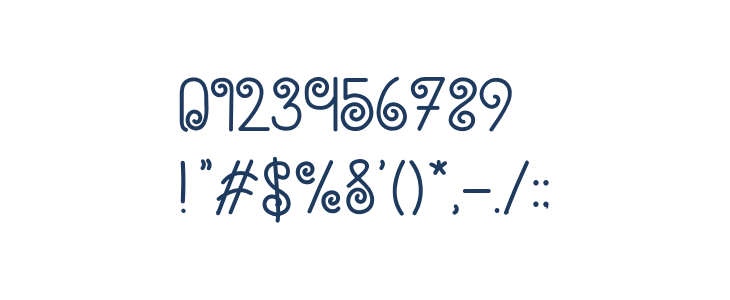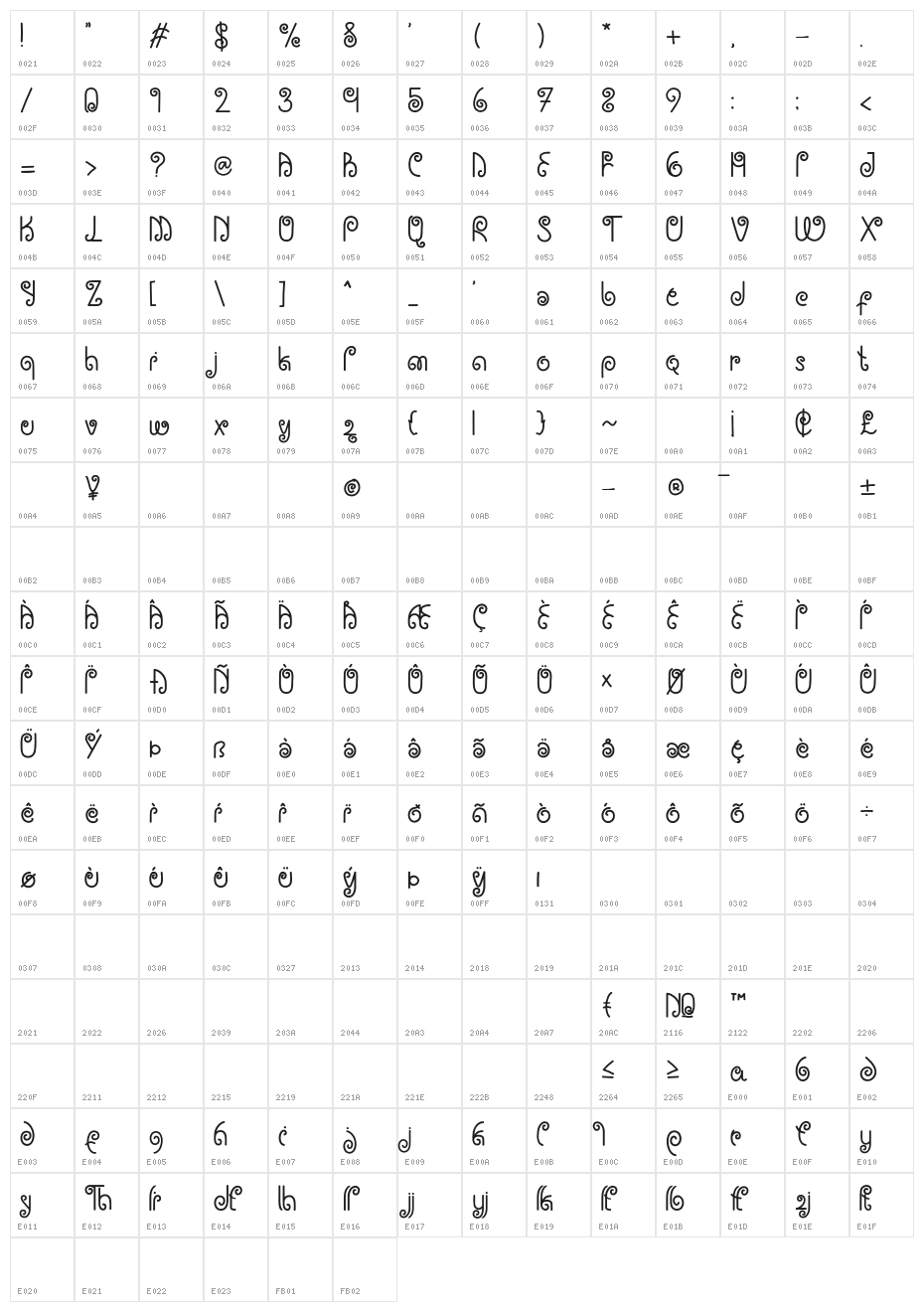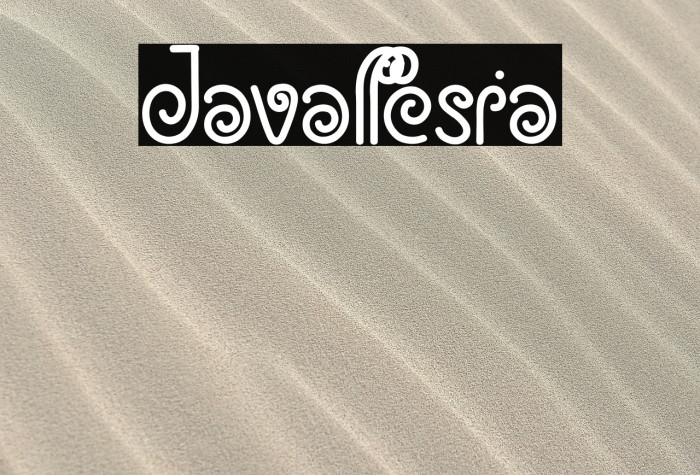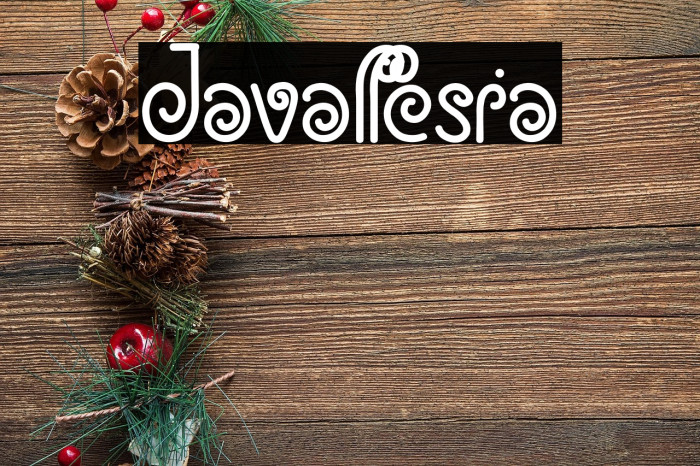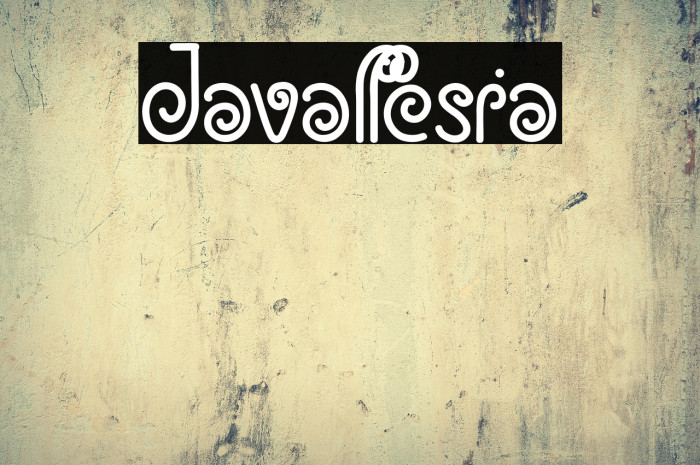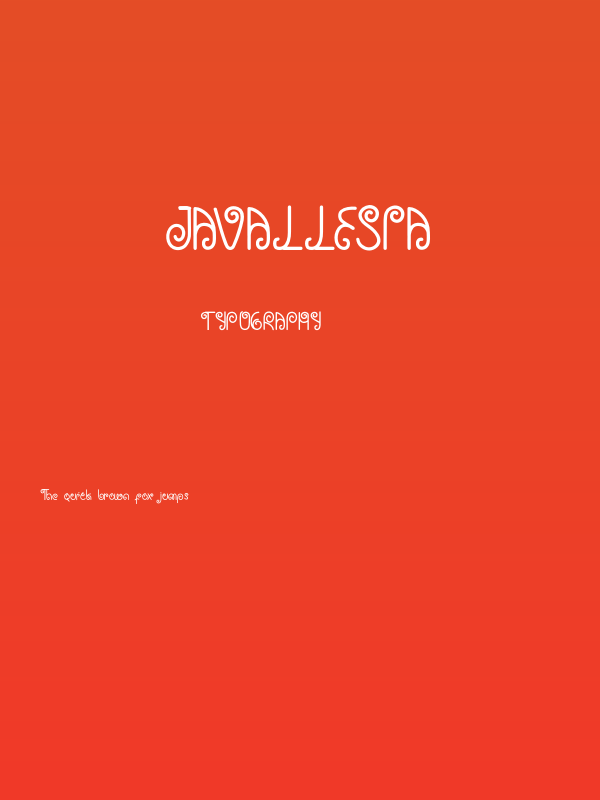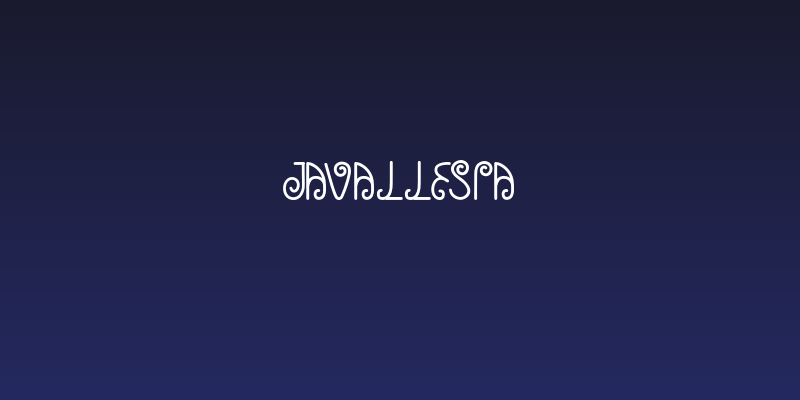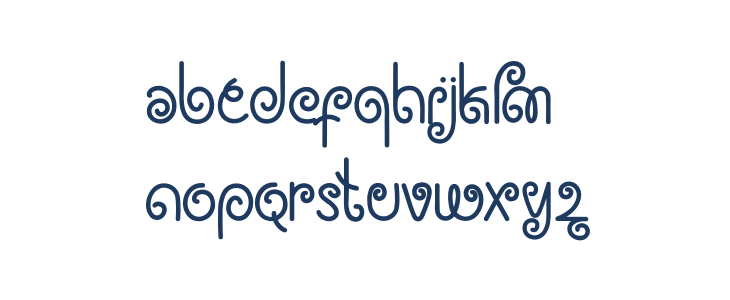
Javallesia Font
Javallesia Description
This font features a whimsical and playful design with a decorative flair. Each character is crafted with intricate loops and curls, giving it a unique and artistic appearance. The uppercase letters are bold and striking, while the lowercase letters maintain a consistent style with slightly more delicate curves. Numbers and special characters follow the same ornate style, making the font cohesive and visually appealing. The overall design is reminiscent of a hand-drawn or calligraphic style, suitable for creative and artistic projects.
| Proposed Projects | Ideal for greeting cards, invitations, posters, and artistic branding. |